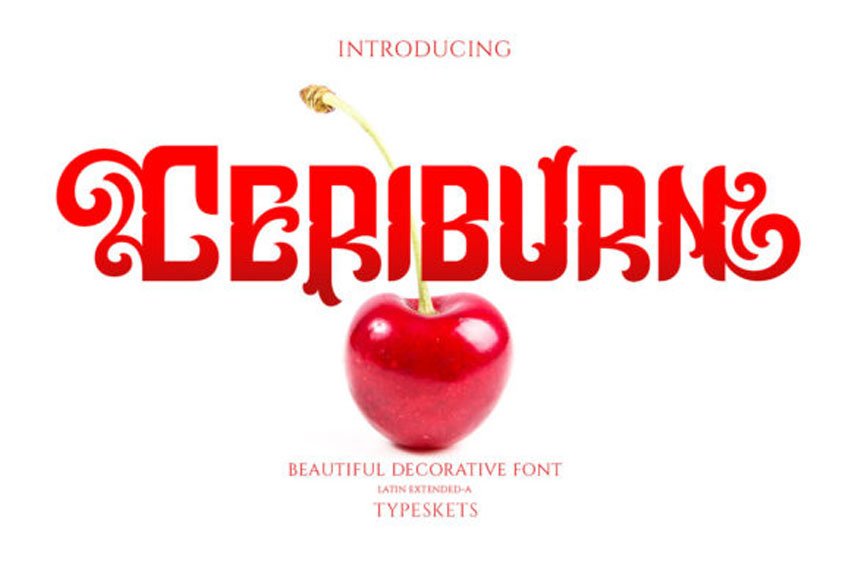
Ceriburn Font
Ceriburn Font is a bold, detailed and vintage styled display font.
This versatile script font has a wide spectrum of applications ranging from greeting cards to headlines and is guaranteed to add a distinct feel to your next project.